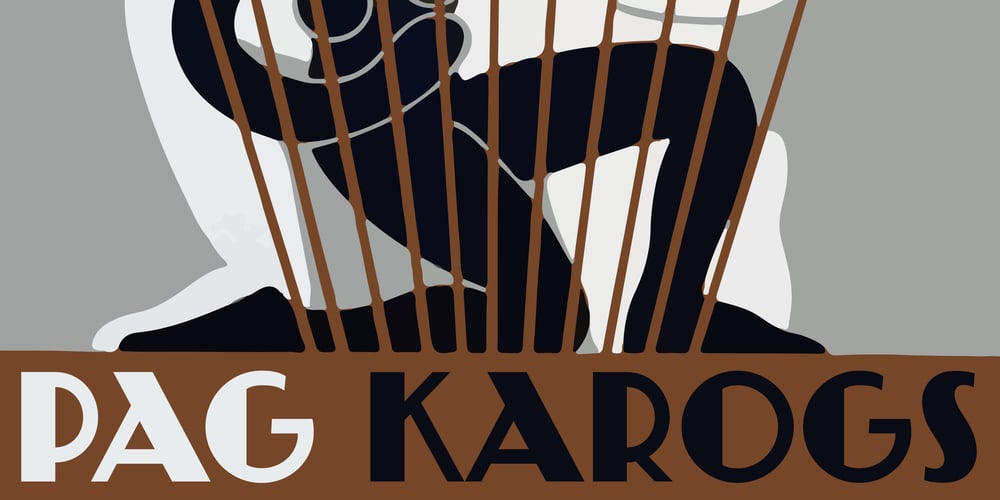
PAG Karogs
PAG Karogs font
PAG Karogs Font Family was designed by Ryoichi Tsunekawa and published by Prop-a-ganda. PAG Karogs contains 1 styles and family package options. Prop-a-ganda offers retro-flavored fonts inspired by lettering on retro propaganda posters, retro advertising posters, retro packages all the world over. This is perfect font for your retrospective project. PAG Karogs is geometric, art-deco font that had been used for a match box. The bowls of this font is based on a positive circle. The contrast of a circle and straight line effective in producing brisk structural rhythms. This is great for branding, packaging and posters or any other kind of display use.